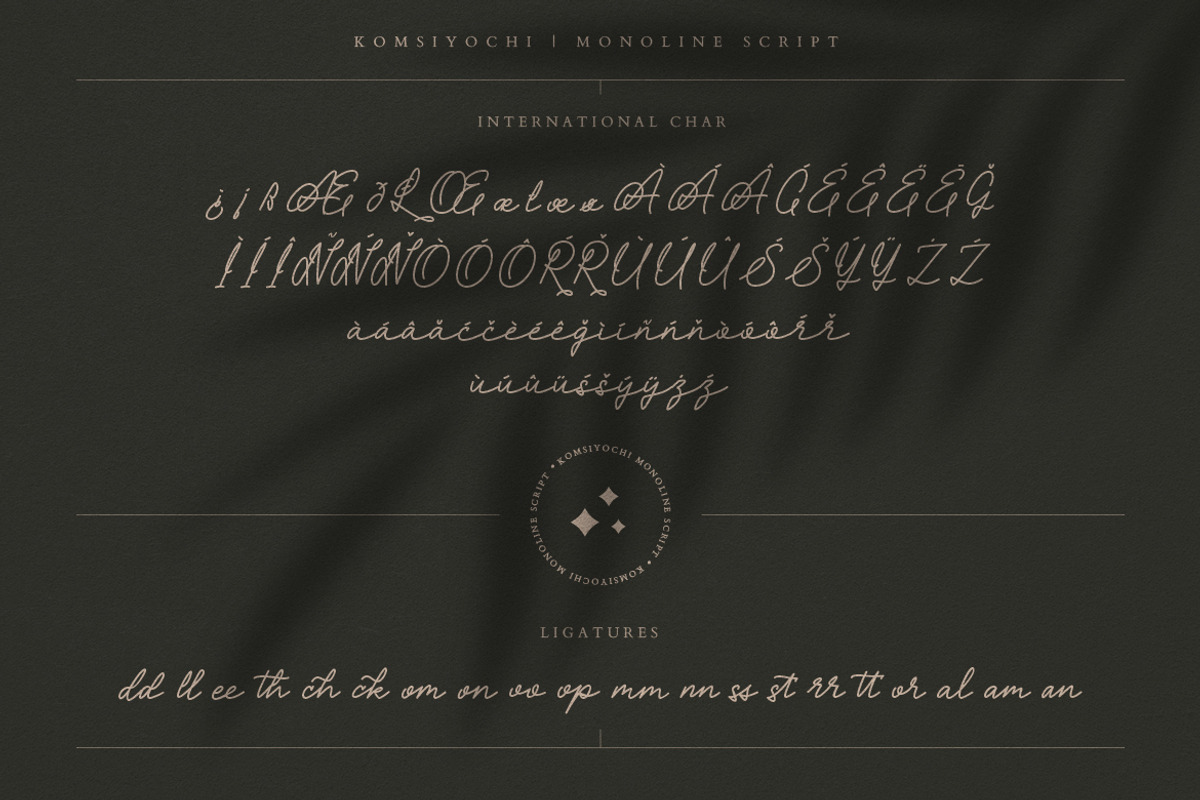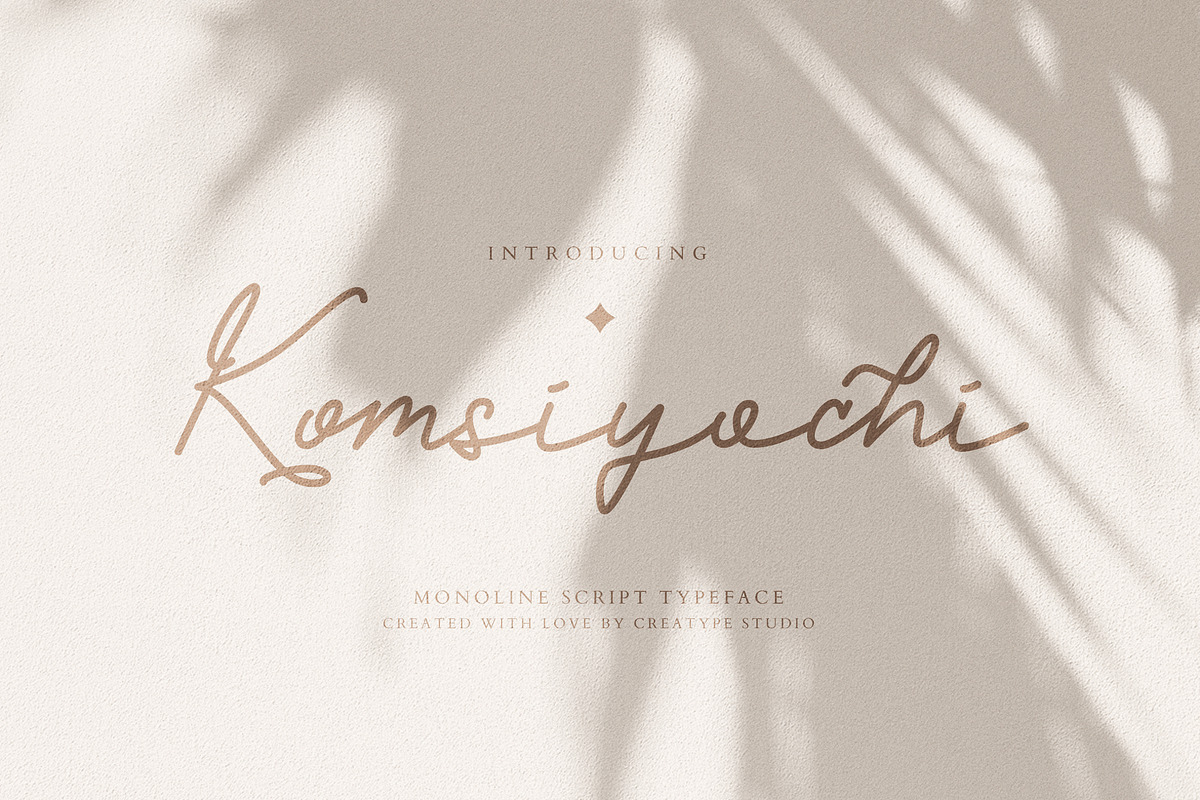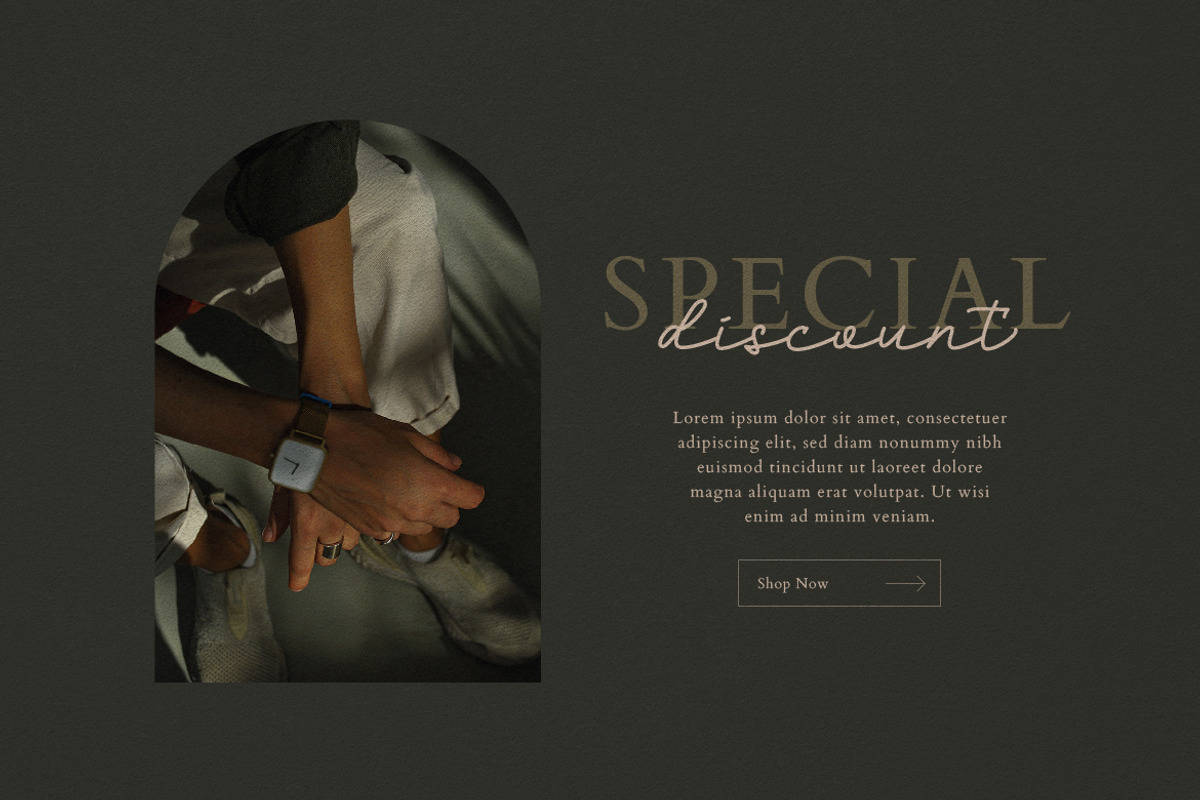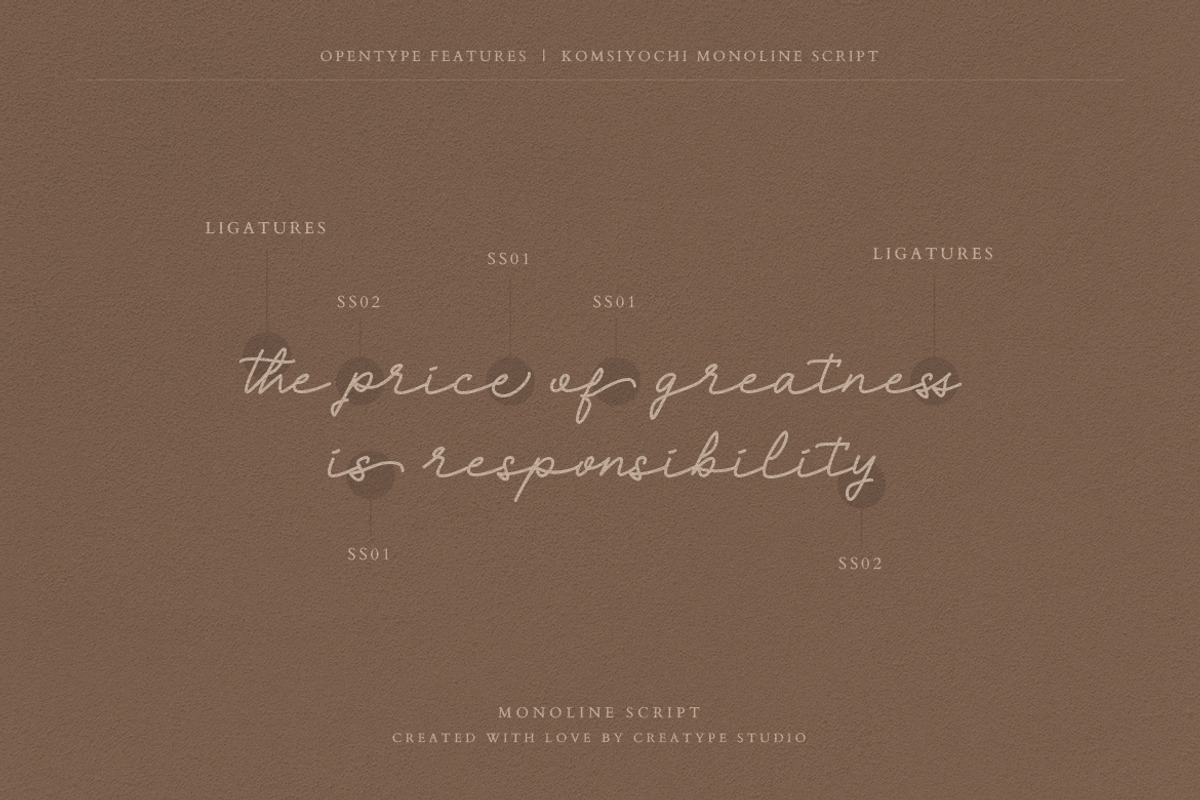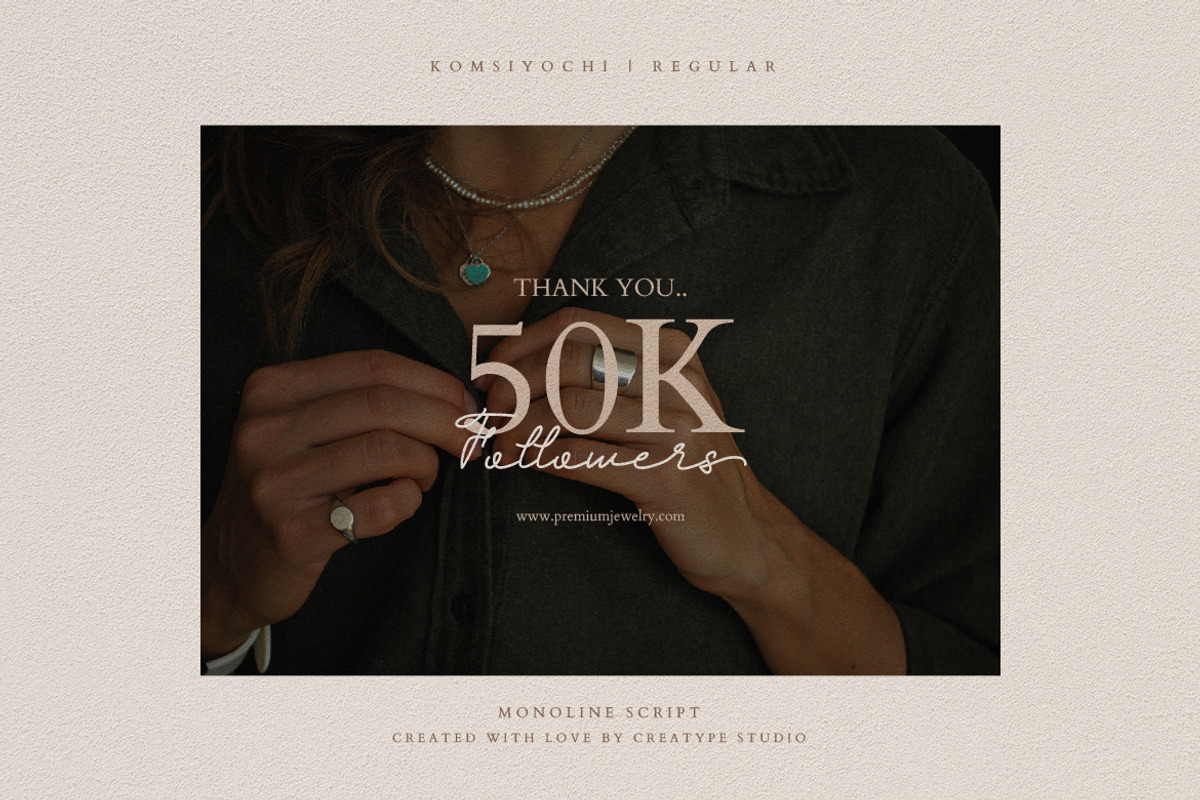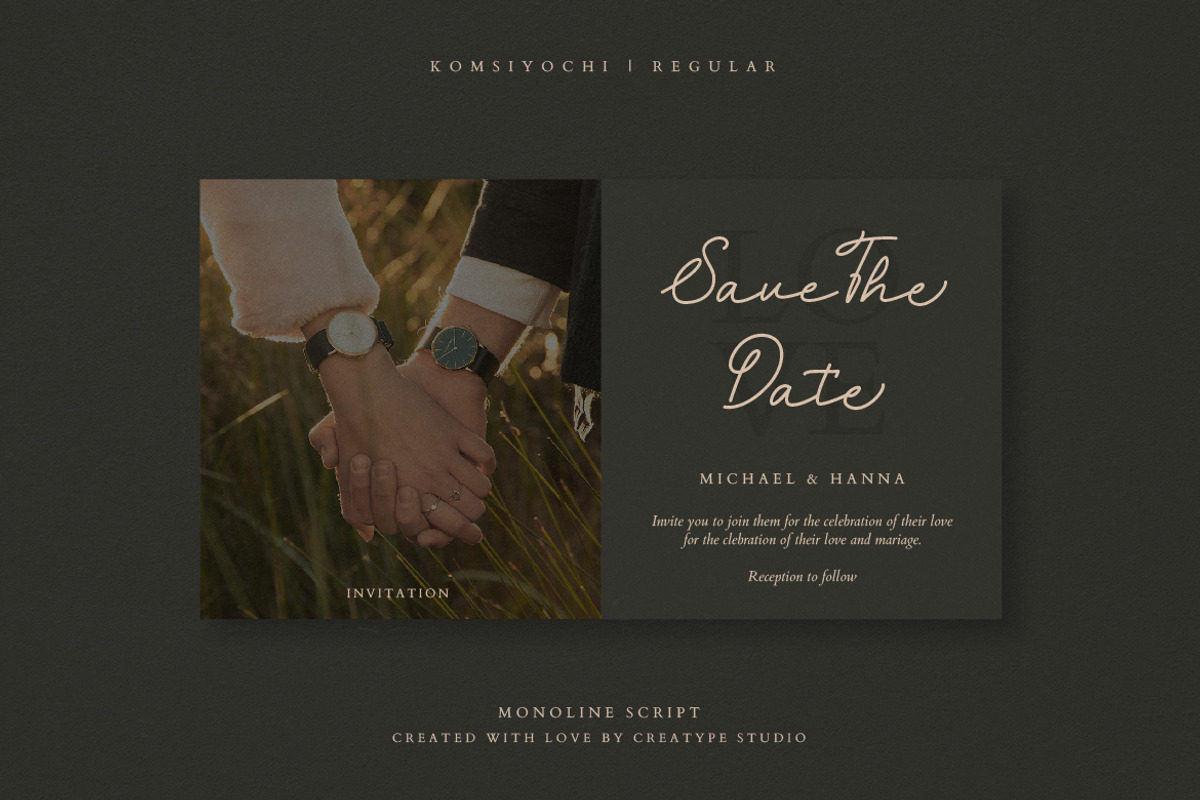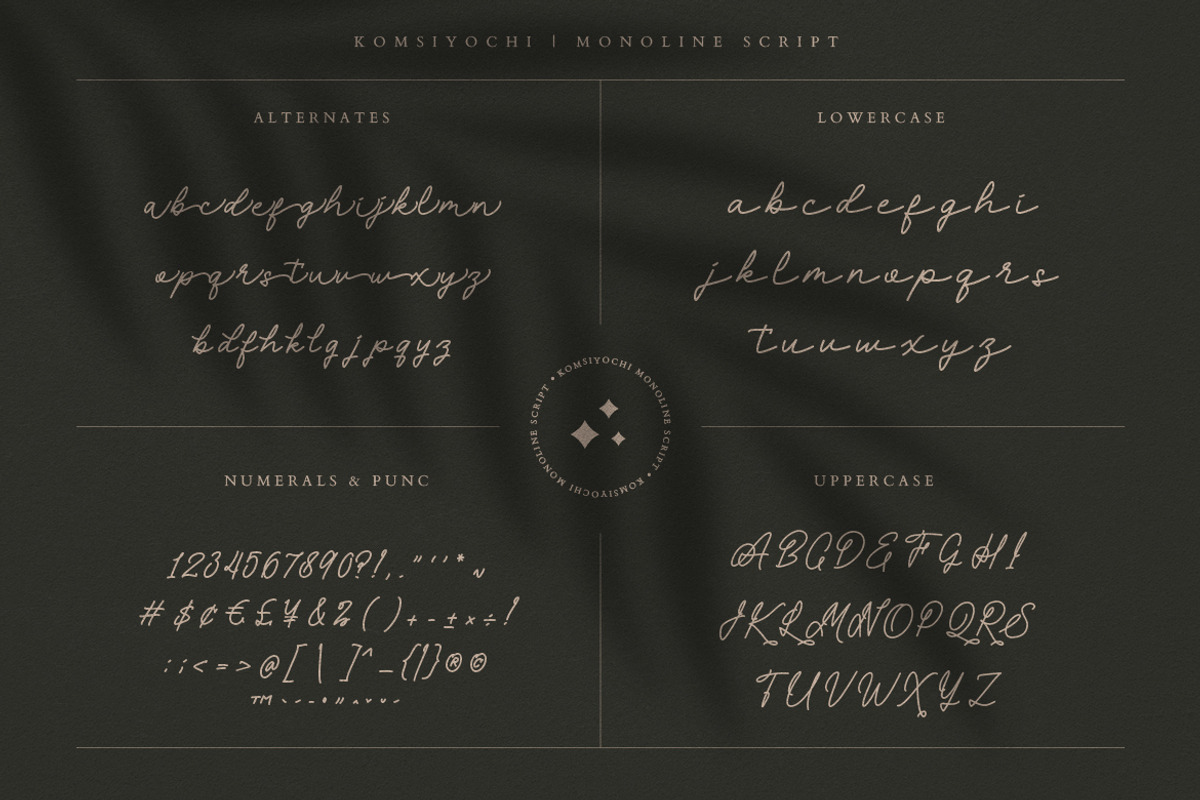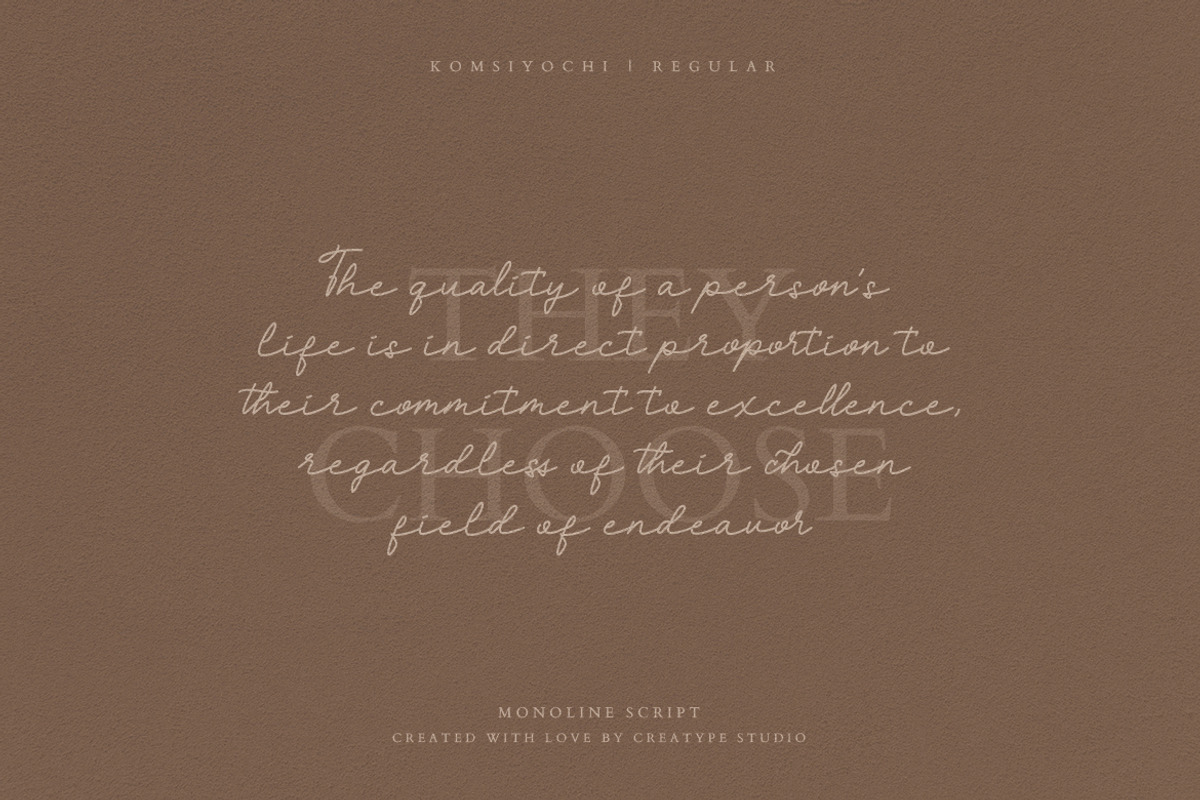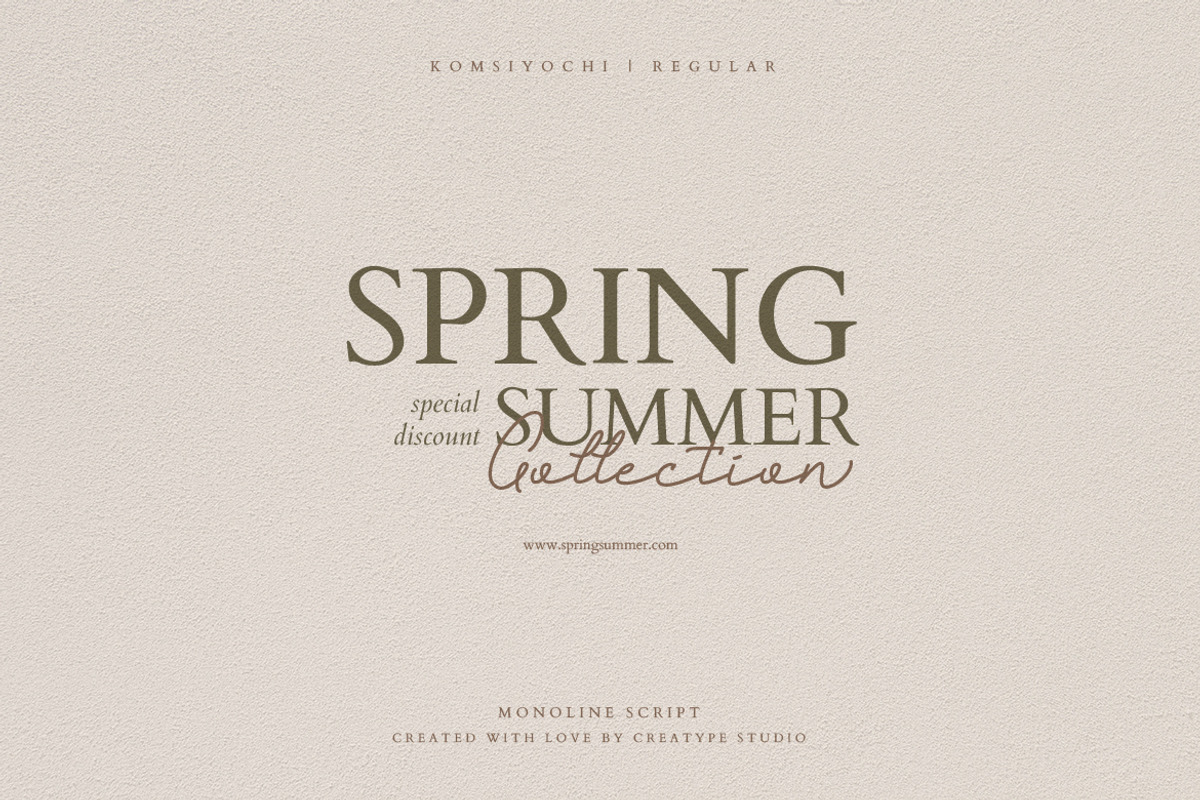
Komsiyochi Monoline Script
Komsiyochi is a monoline script typeface that looks very natural, smooth, and a bit bold. Komsiyochi is made with love, it can be seen from the shape of the writing which looks natural, smooth, and a bit bold.
Komsiyochi is perfect for branding projects, logo, wedding designs, social media posts, advertisements, product packaging, product designs, label, photography, watermark, invitation, stationery and any projects that need handwriting taste.
- Ligature & Alternate